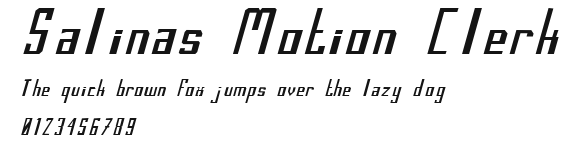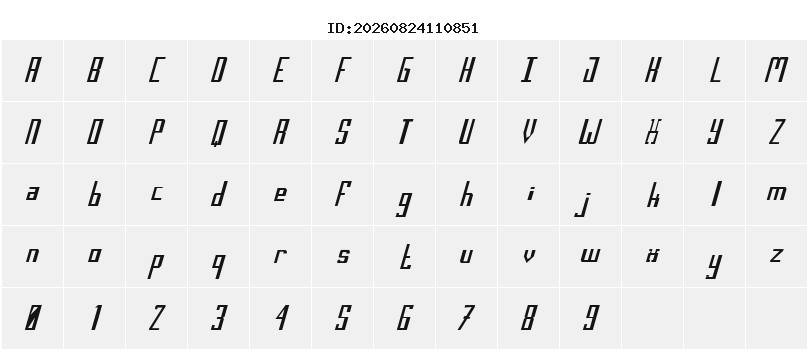
Salinas Motion Clerk.ttf is a modern, elegant sans-serif font designed for ultimate readability and visual harmony. Perfect for branding, headlines, web design, and print materials.